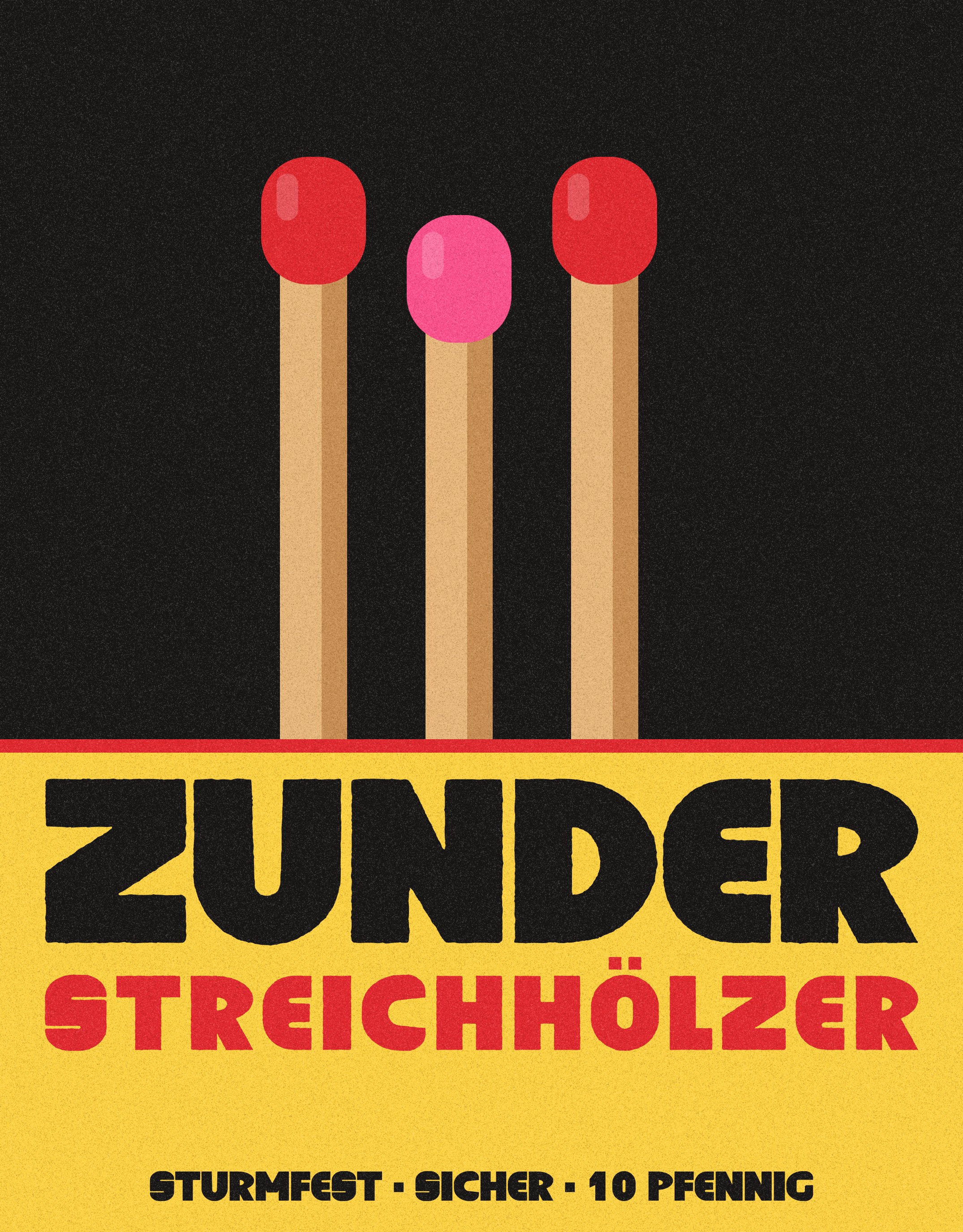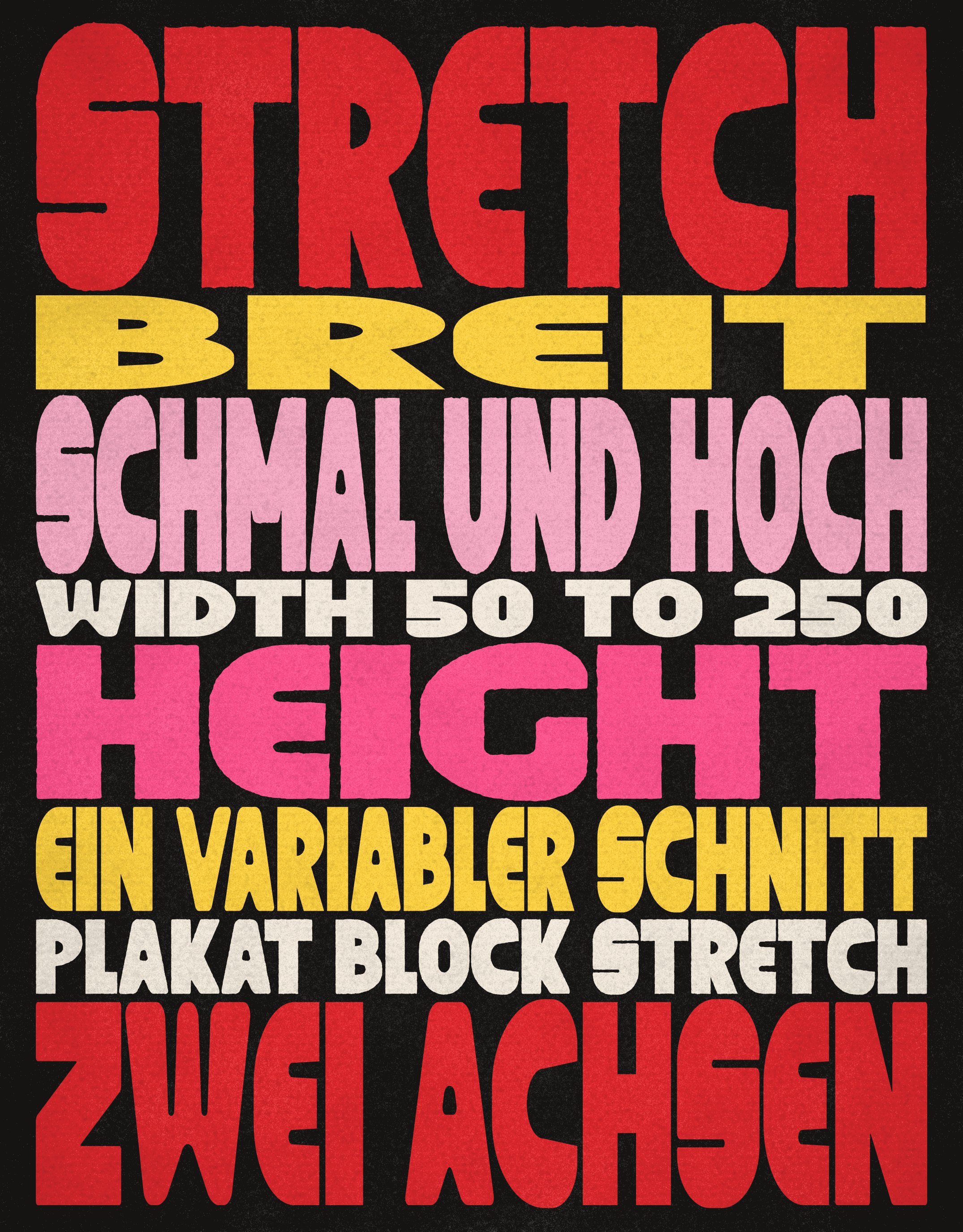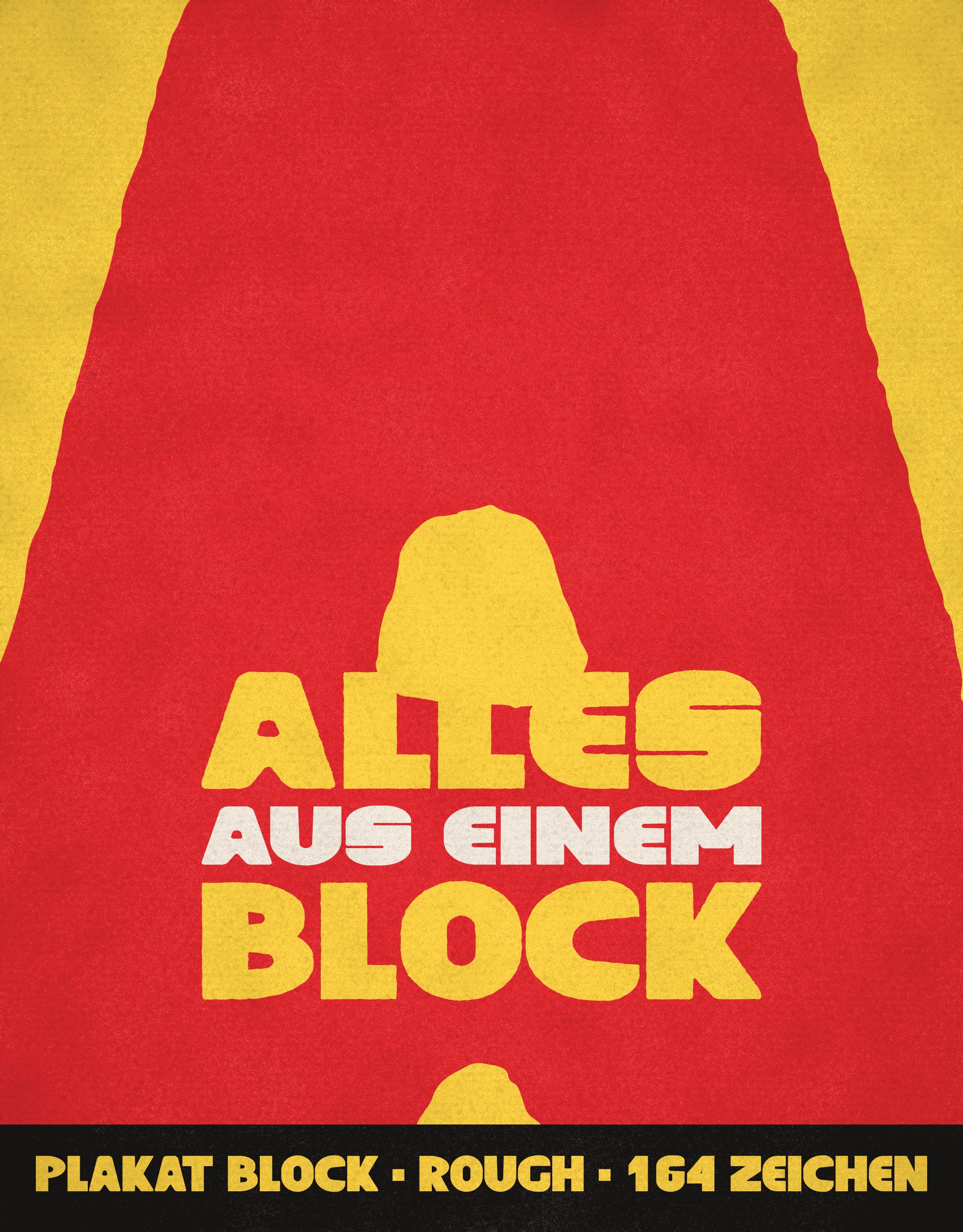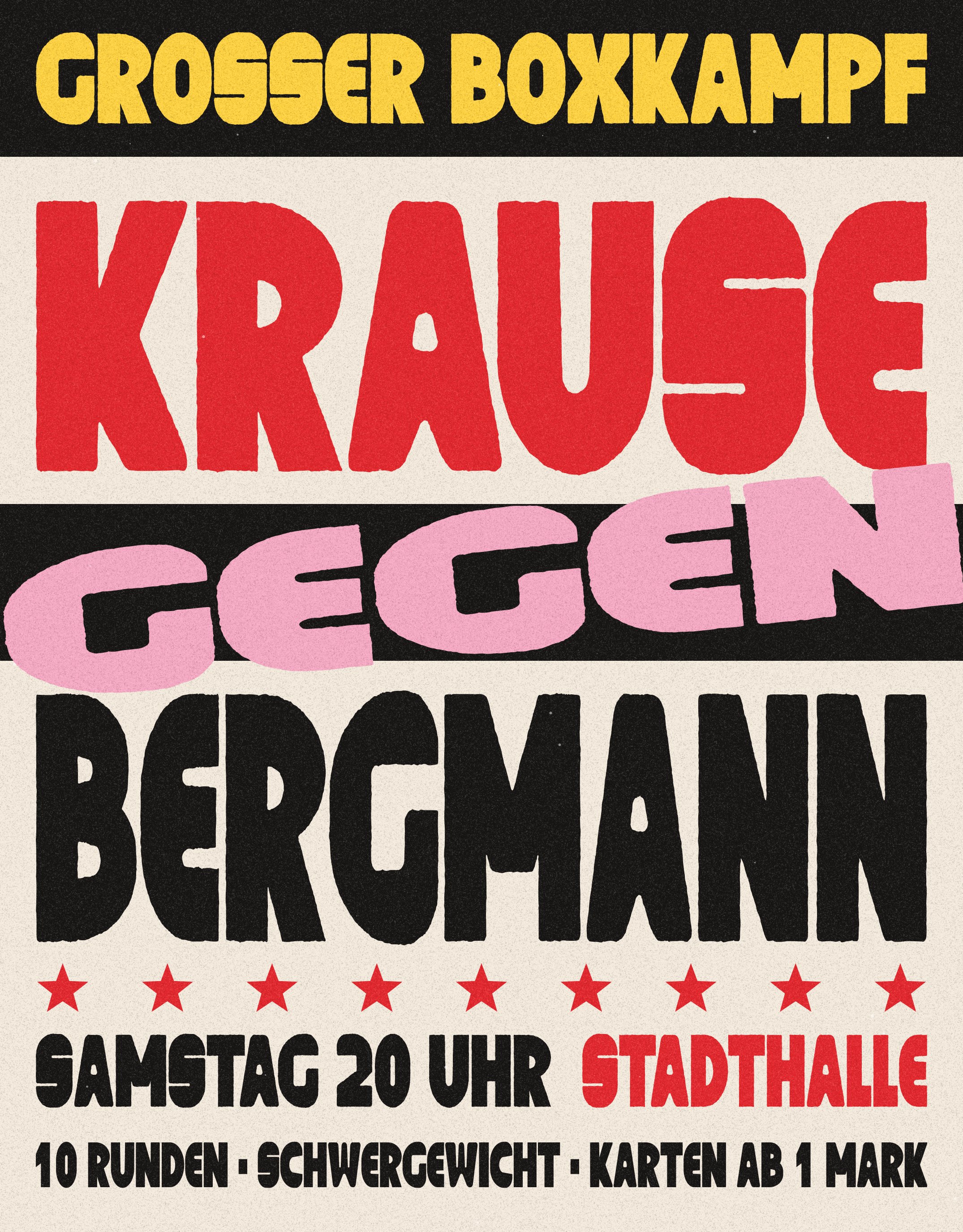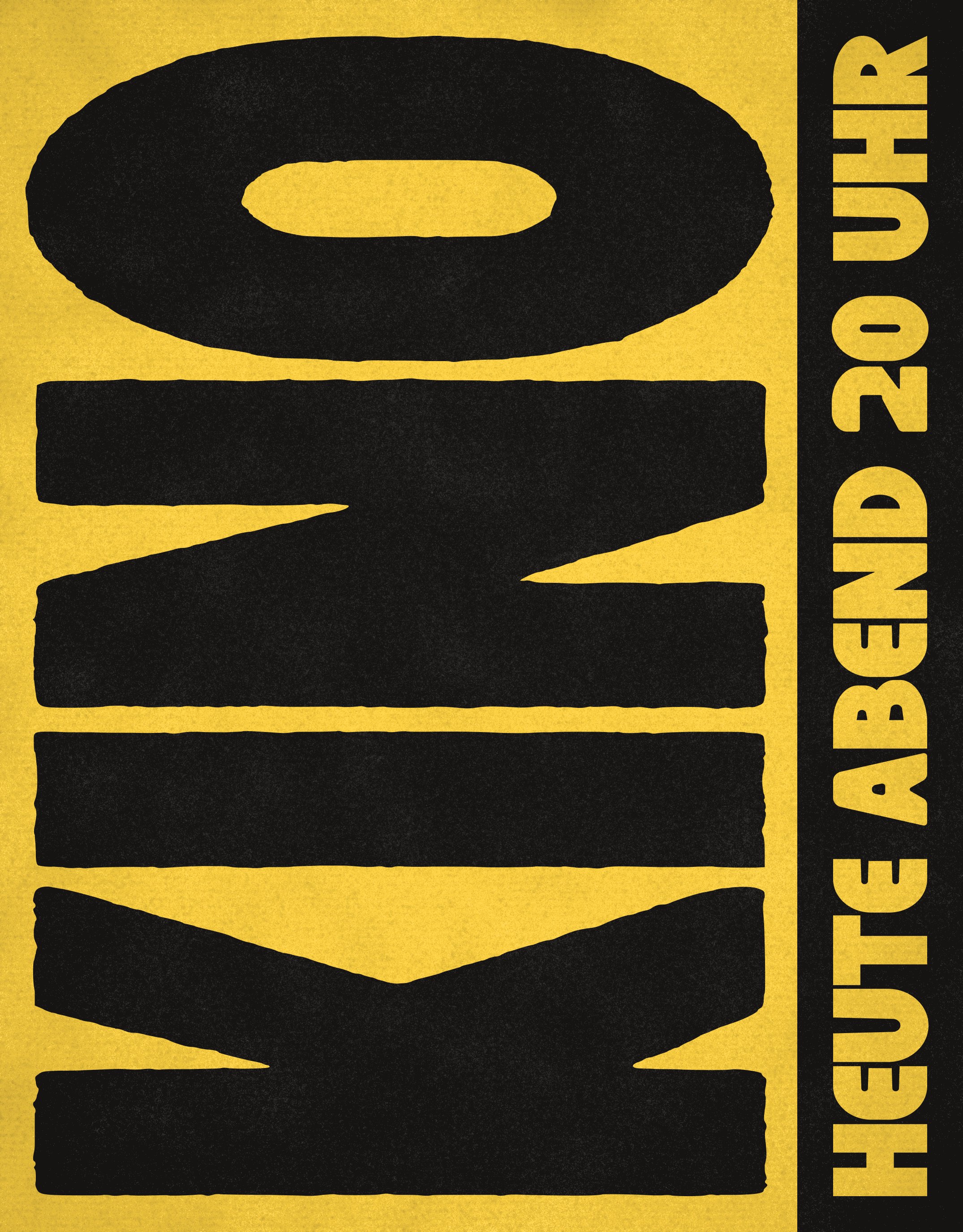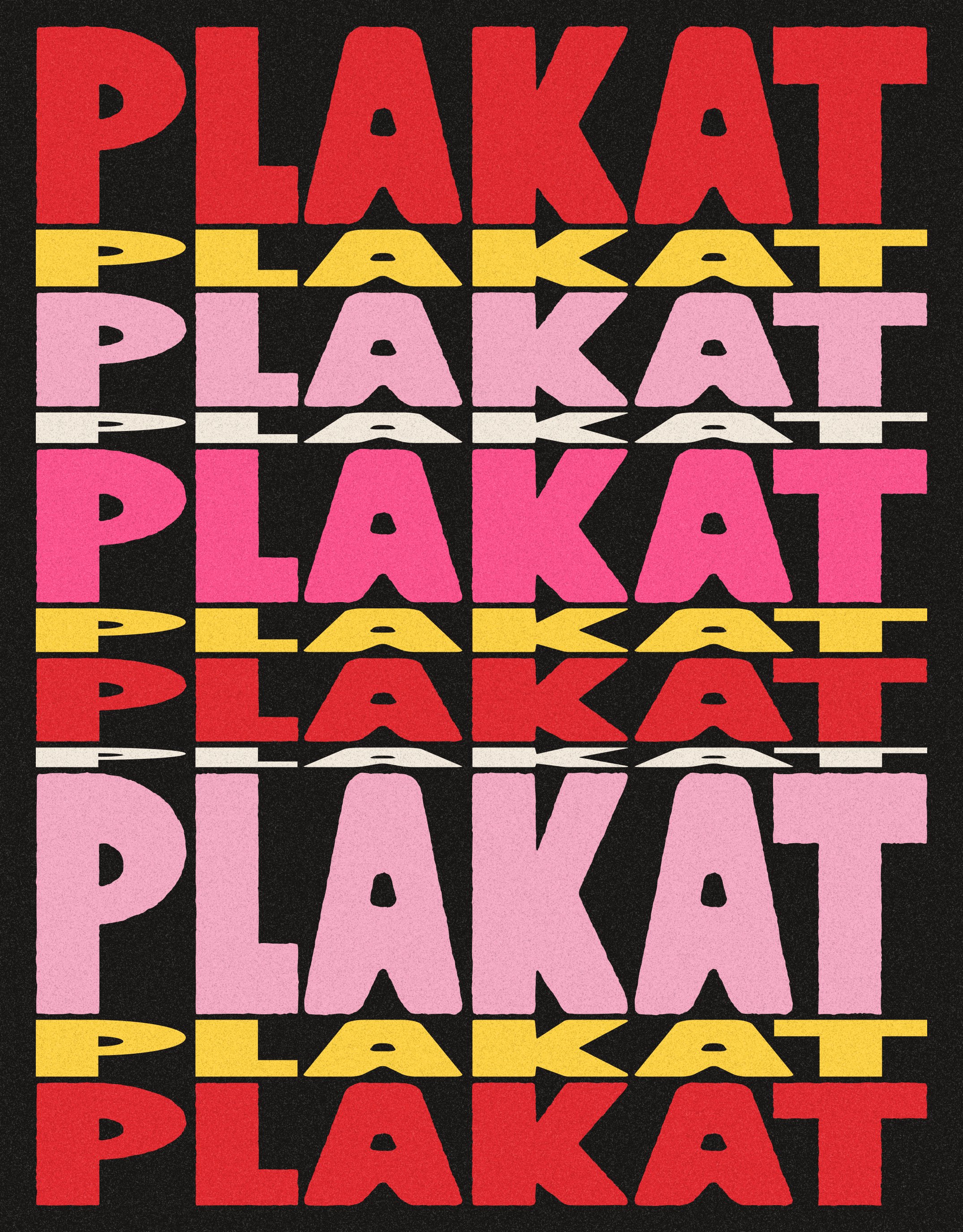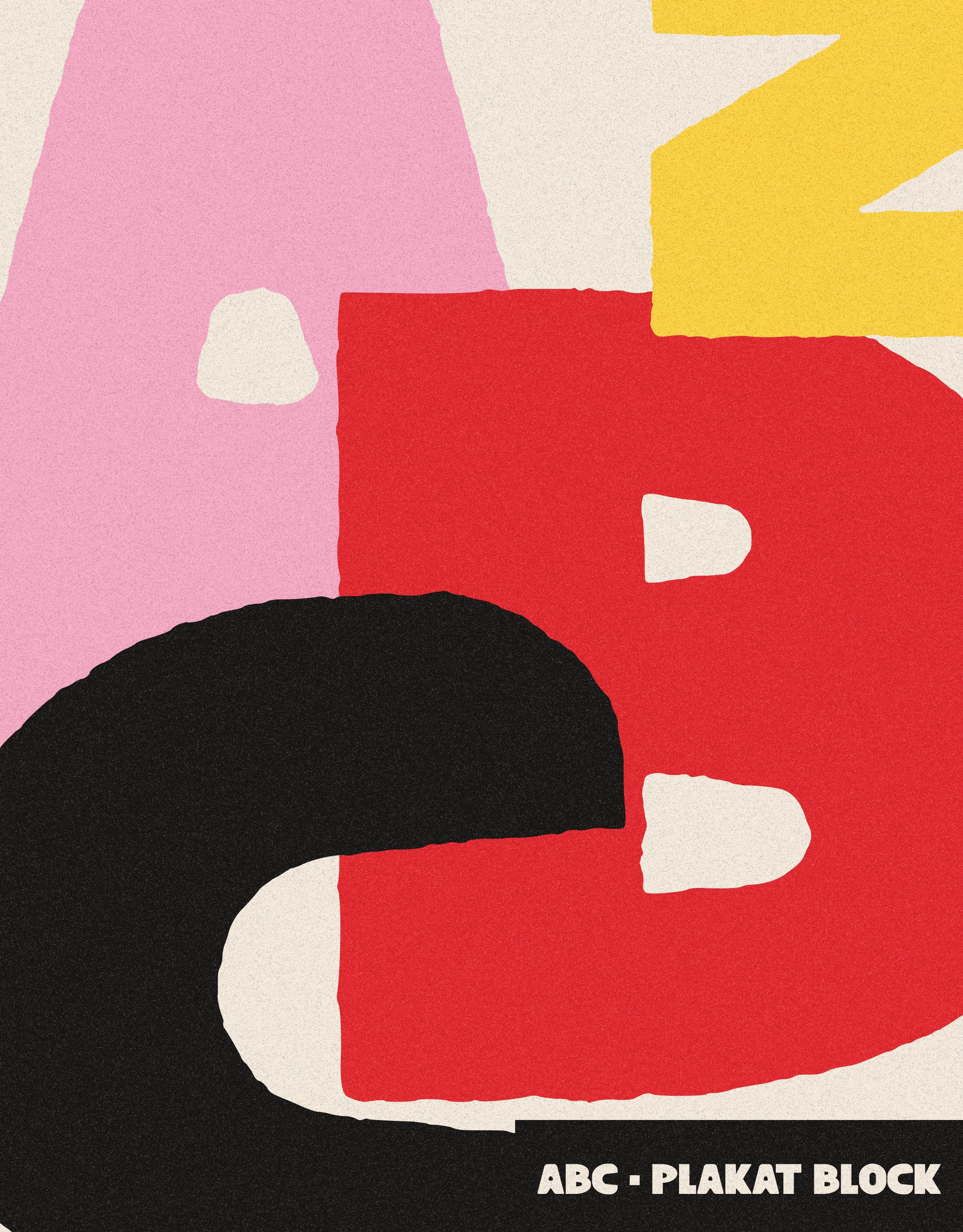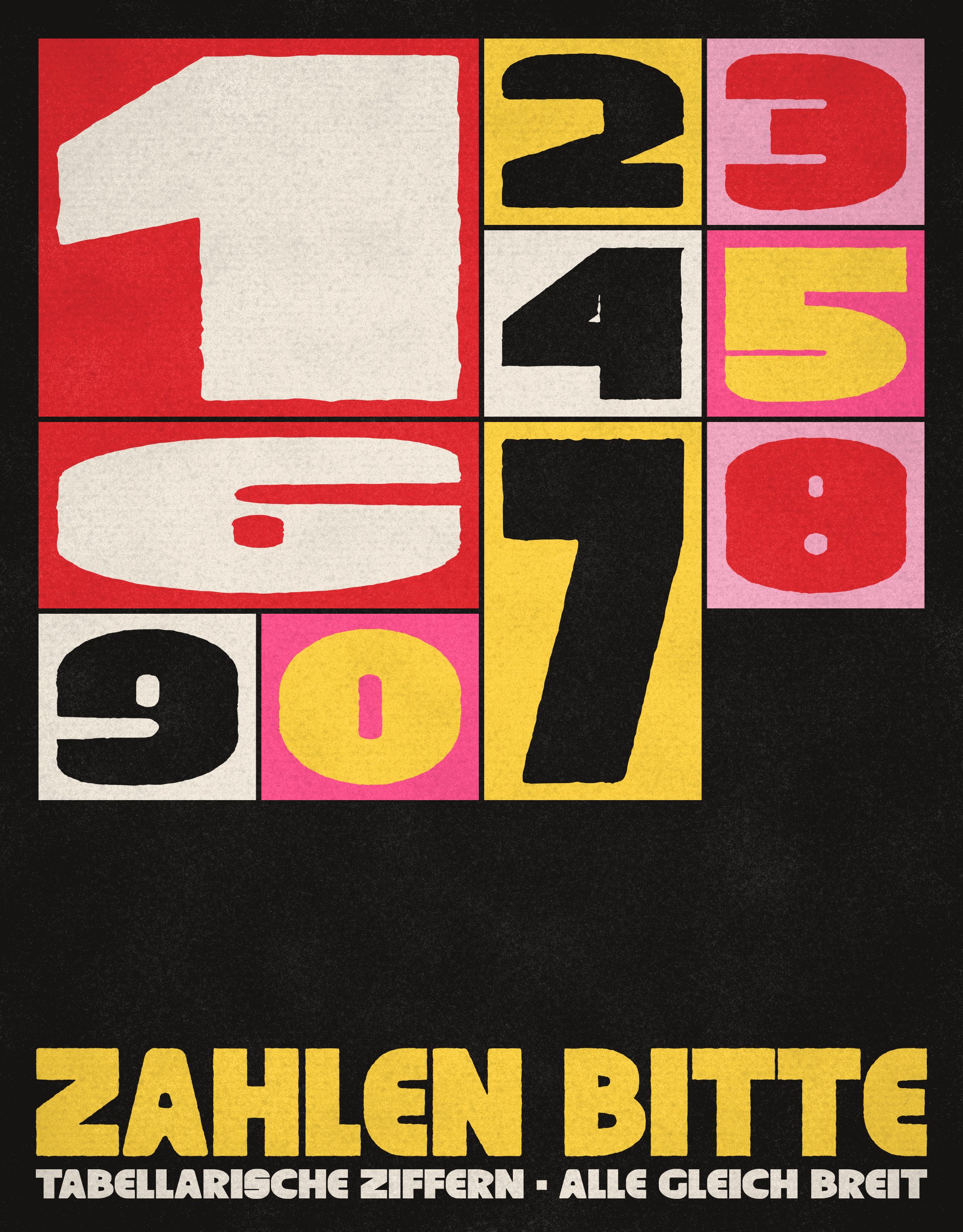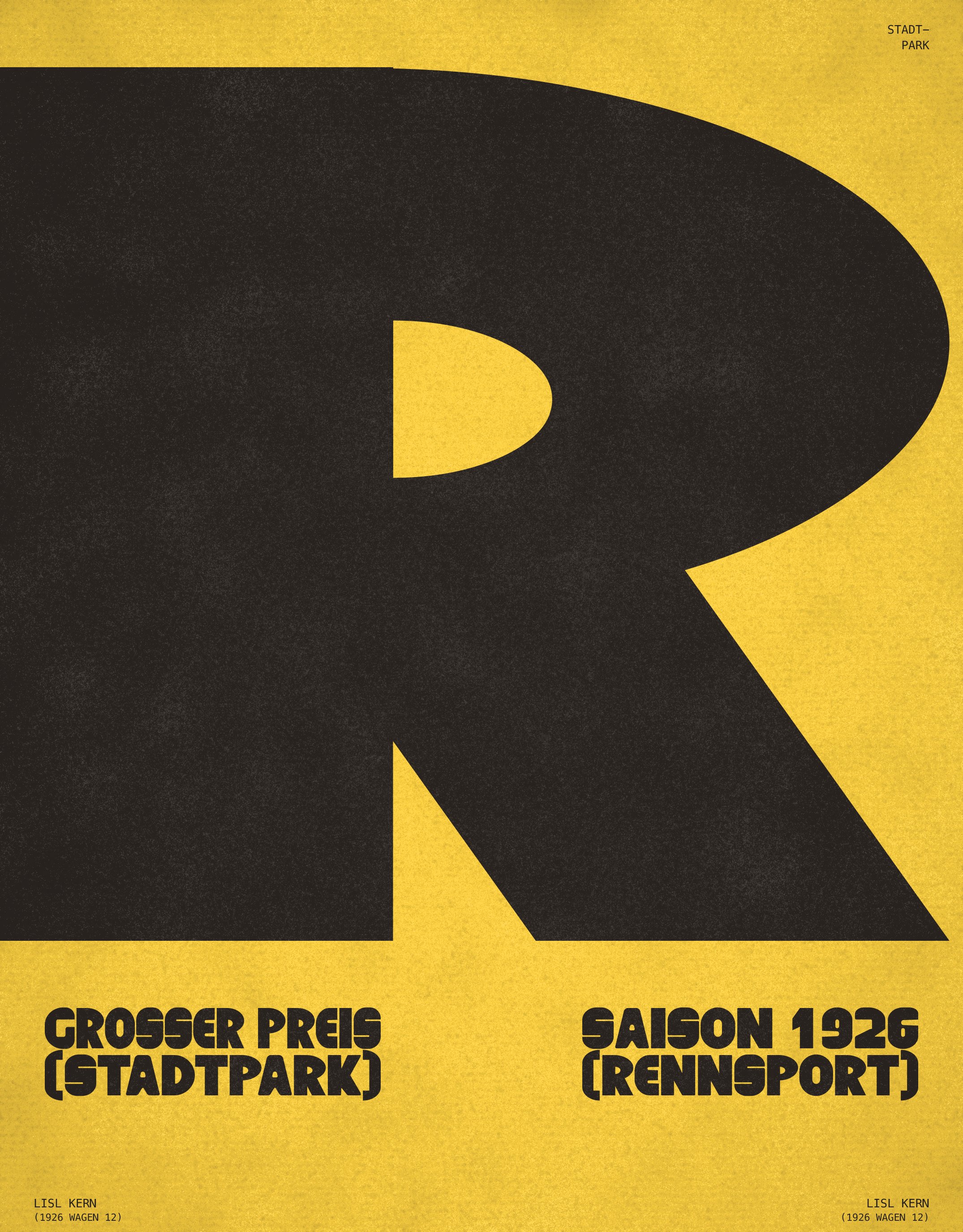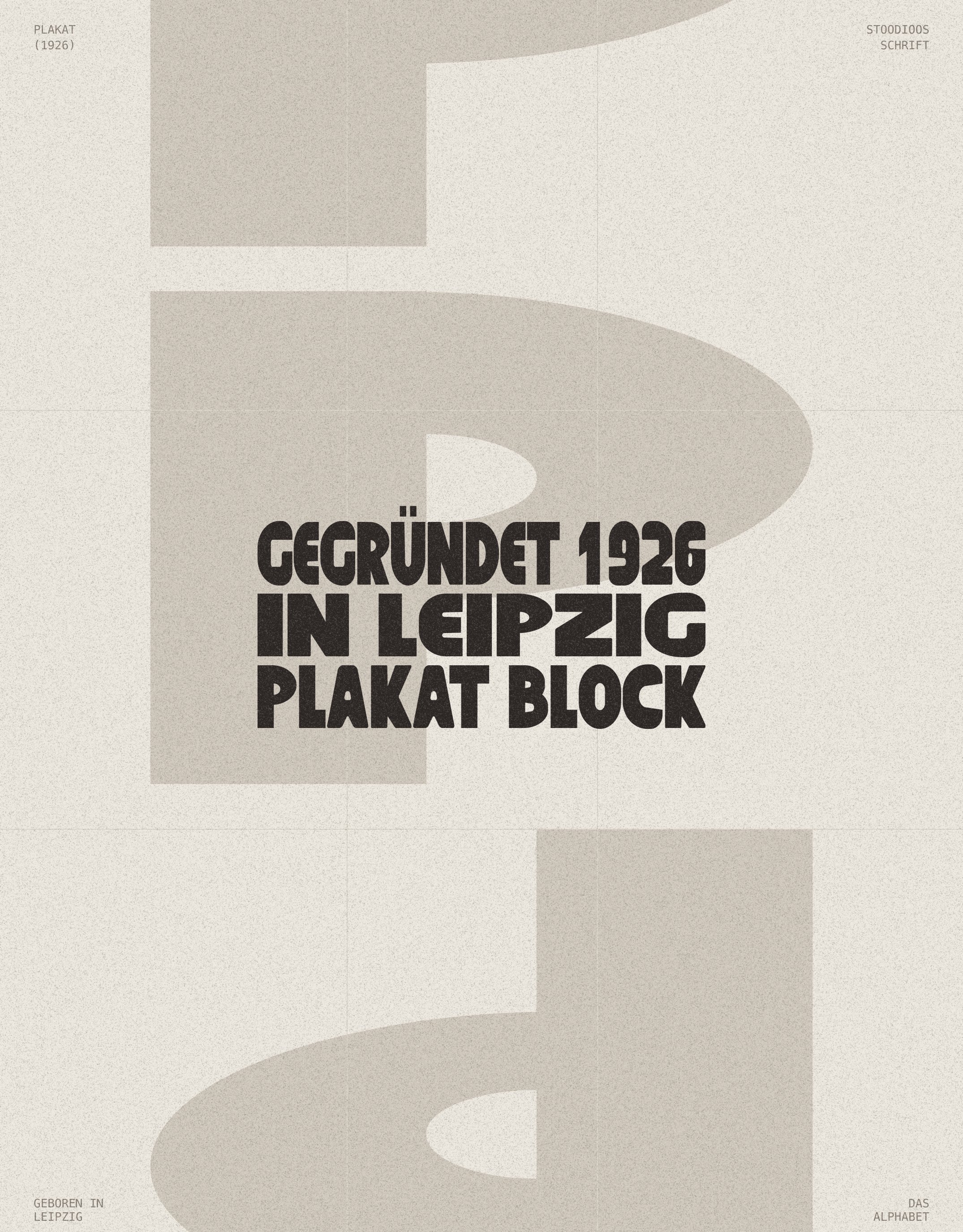
PLAKAT
BLOCK
Poster capitals with almost nothing between them, drawn to be set enormous. Two cuts: Regular with clean edges, and Rough, which carries the bitten edge of ink pressed into paper. Both come with Stretch, a variable system that pulls the letters wider and taller the way a lettering artist fills a line, from extra condensed to ultra wide and from normal height up to a tower. 164 glyphs, full Western European capitals, tabular figures and kerning.
Stretch · 24 styles per cut